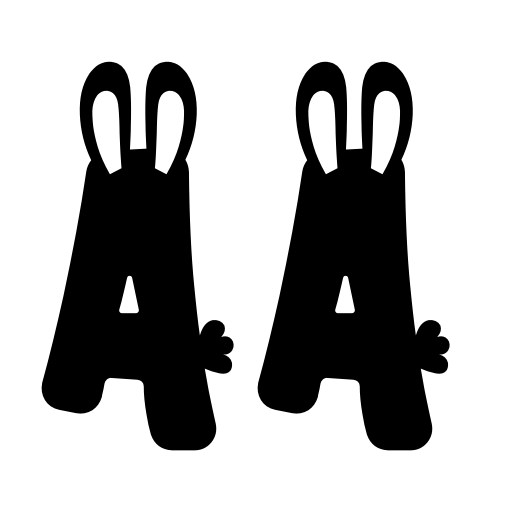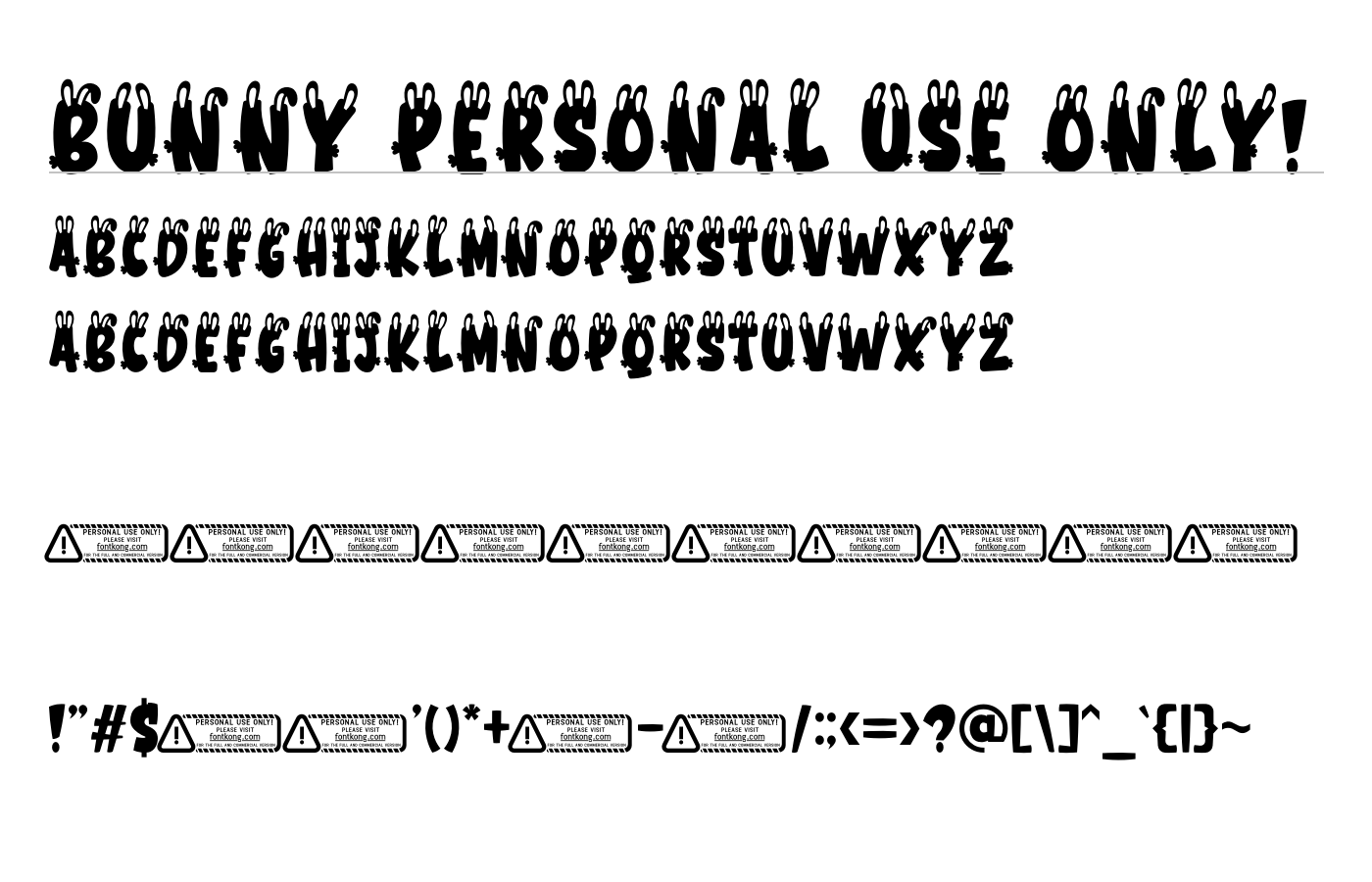
Bunny PERSONAL USE ONLY! is a playful, bold display font featuring thick, rounded letterforms adorned with whimsical bunny ear shapes and paw-like details. Its strong, chunky style with a high x-height and uniform stroke weight gives it a fun and approachable personality, making it ideal for children’s designs, party invitations, and lighthearted branding. This font works best in large sizes where its charming character and unique decorative elements can shine clearly.
Bunny PERSONAL USE ONLY! Font
About Bunny PERSONAL USE ONLY! Font